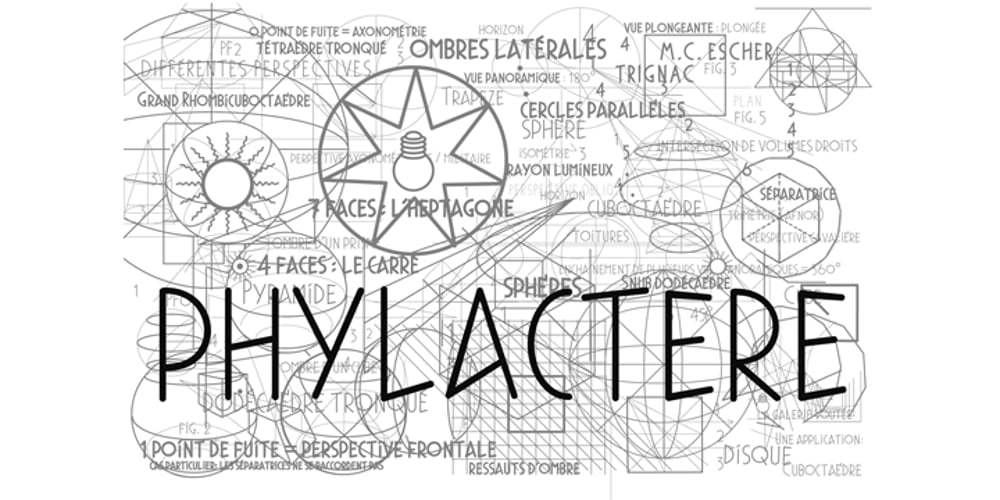
Phylactere
Phylactere font
Phylactere Font Family was designed by Florent Courtaigne and published by Cubo Fonts. Phylactere contains 6 styles and family package options. This font draws its inspiration from handwriting, in order to maintain a certain dynamism and irregularity. It’s a serifless font, with small capital characters, always readable at any dimension, despite a tight tracking.